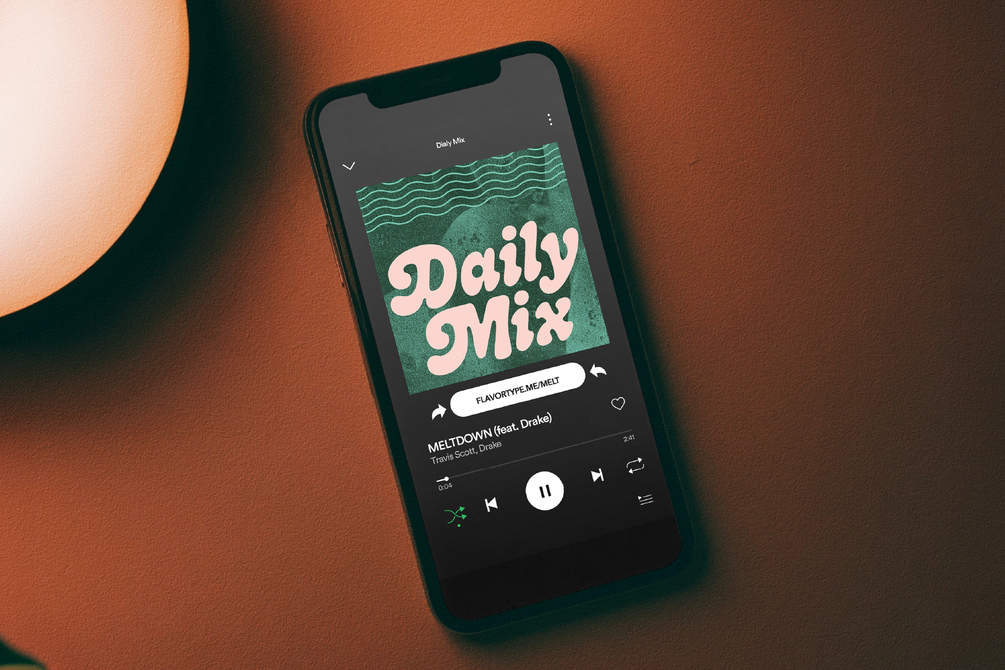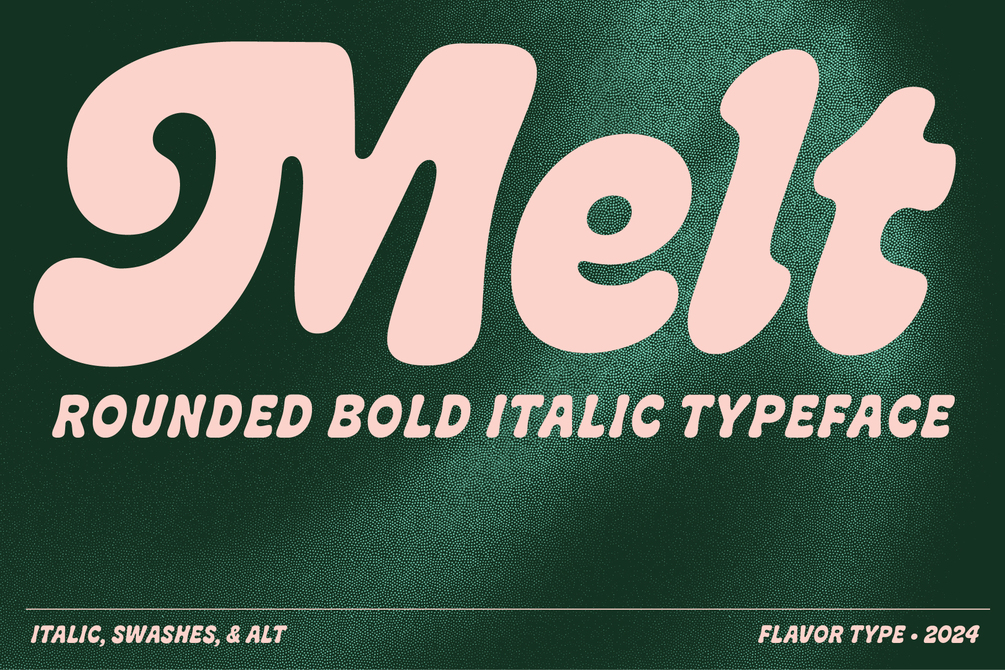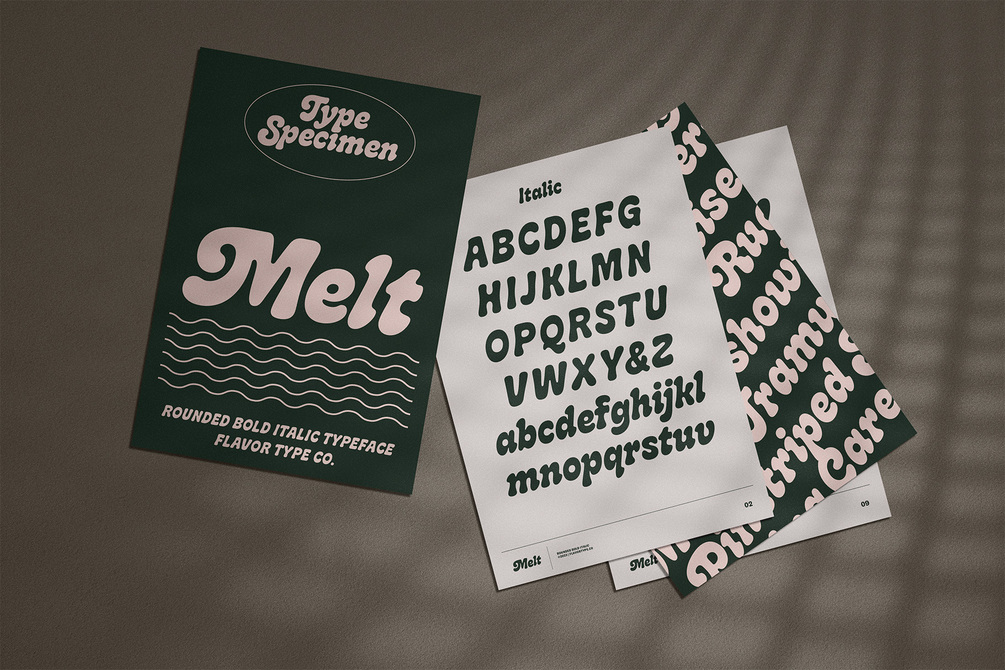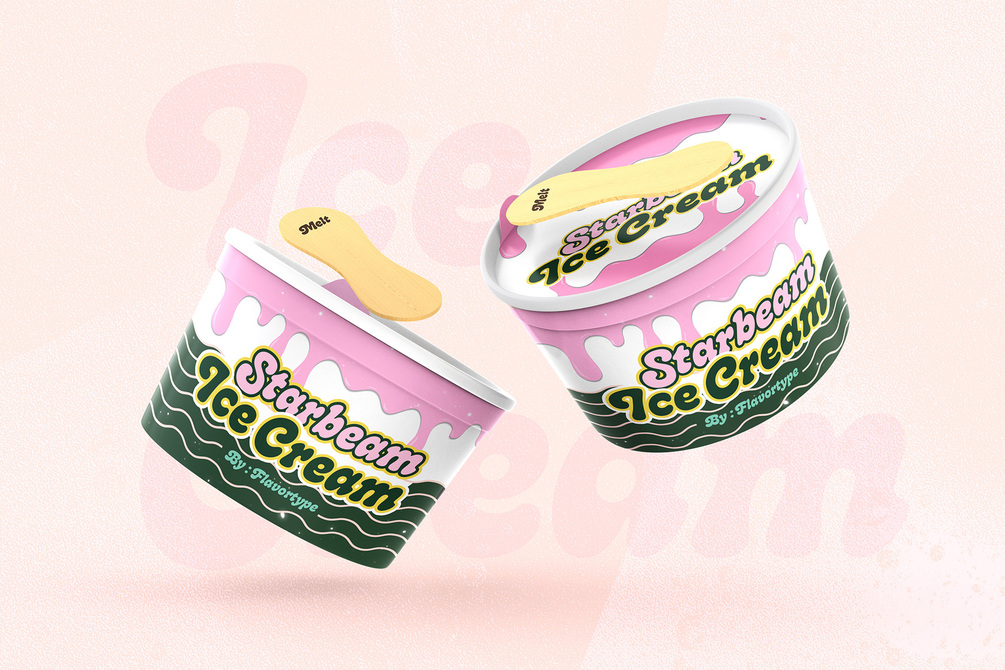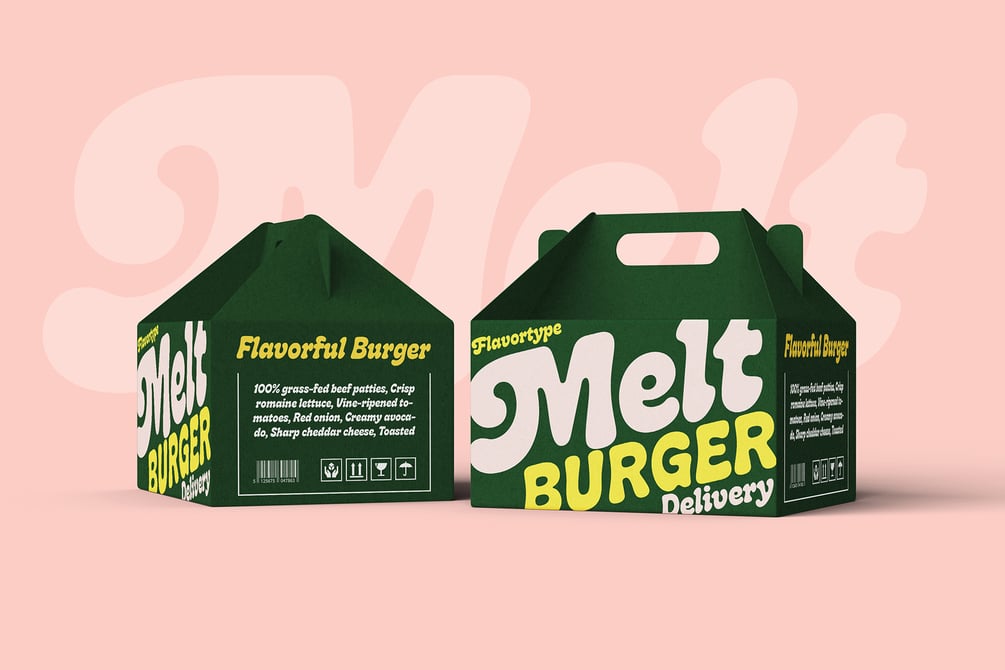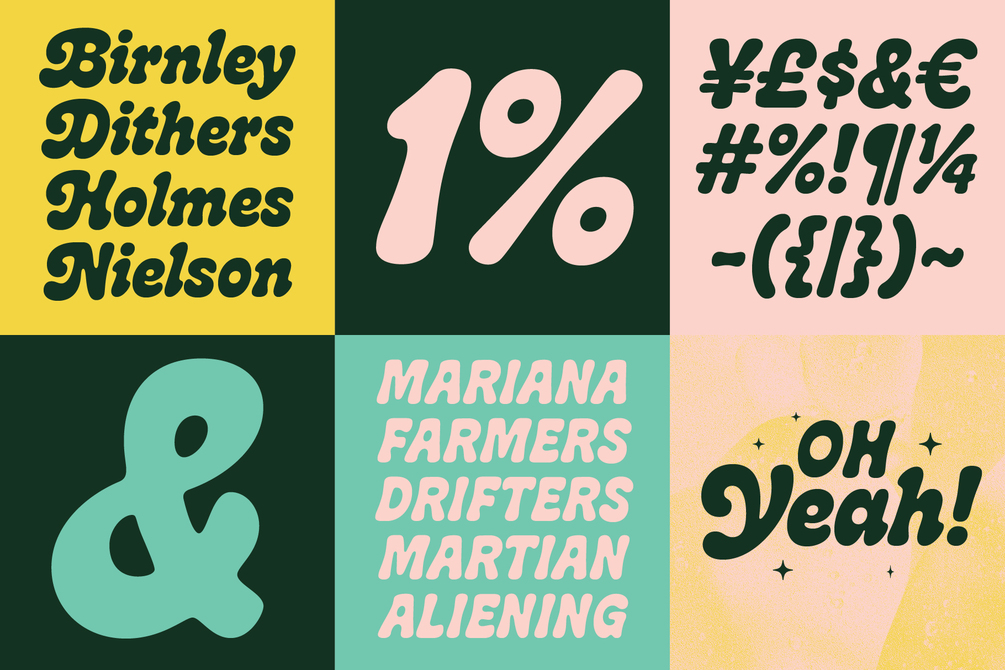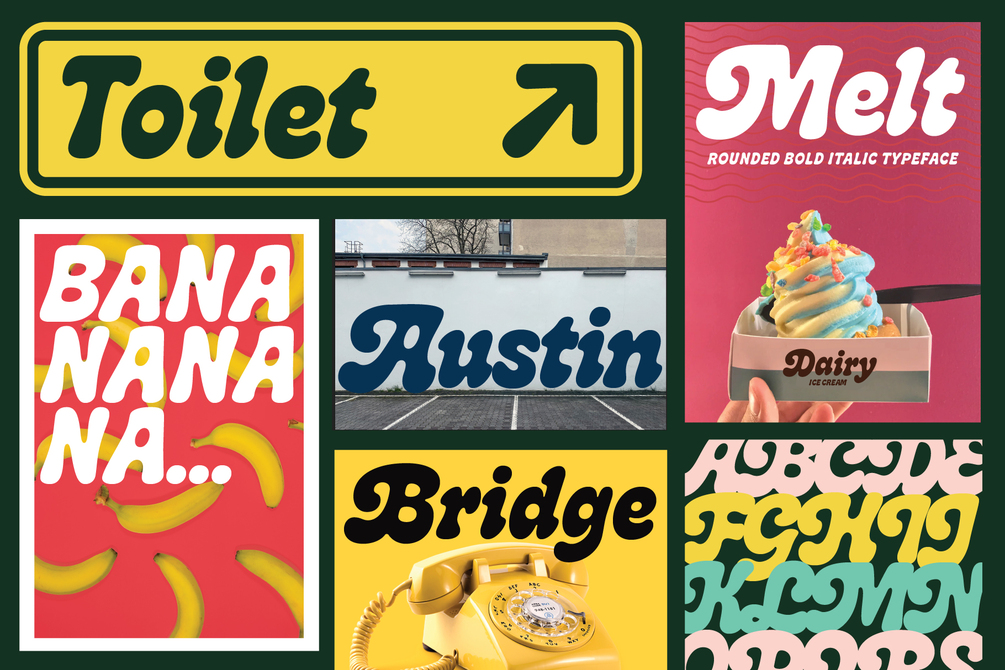
Melt
Introducing "Melt," a captivating and versatile font that seamlessly blends boldness with soft, rounded curves, exuding an irresistible charm. This font is a harmonious fusion of cursive elegance, bold confidence, and modern trends, making it perfect for eye-catching headlines that demand attention.
The Melt font family is thoughtfully crafted with three distinct selection font files, ensuring a range of creative possibilities:
Melt Italic (Full Features): The italic variation of Melt boasts full features, providing a dynamic and playful touch to your designs. With its stylish slant and graceful curves, Melt Italic is ideal for adding a touch of sophistication to headlines, posters, and other creative projects.
Melt Swashes: Elevate your designs with the Melt Swashes font file, where uppercase letters are replaced with delightful swashes. These swashes add a whimsical and artistic flair to your text, creating a unique and expressive visual impact. Perfect for adding a touch of creativity to logos, branding, and more.
Melt Swashes Alt: For those seeking alternative swashes for uppercase letters, Melt Swashes Alt offers a distinct set of alternative swash designs. This variation provides even more versatility and customization options, allowing you to tailor your typography to suit the specific aesthetic of your project. Whether you're designing for a trendy website, playful branding, or vibrant marketing materials, Melt's bold, cursive, and rounded style, coupled with its three font file options, ensures that you have the perfect tool to make a lasting impression. Embrace the charm of Melt and let your headlines stand out with a delightful blend of modernity and cuteness.